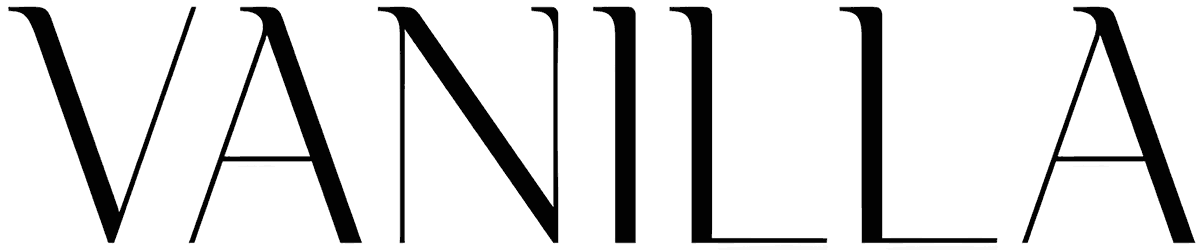
NT Vanilla Font
Take a look at this classic and timeless item that can be used for any subject at any time. As a serif font, NT Vanilla consists of original and captivating letters and mirrors an elegant mood. With an almost full backup of characters in two versions, this unique, all-purpose, elegant font can be fit for various novel projects from movie posters to branding.
NT VANILLA is a new classic semi-serif font.